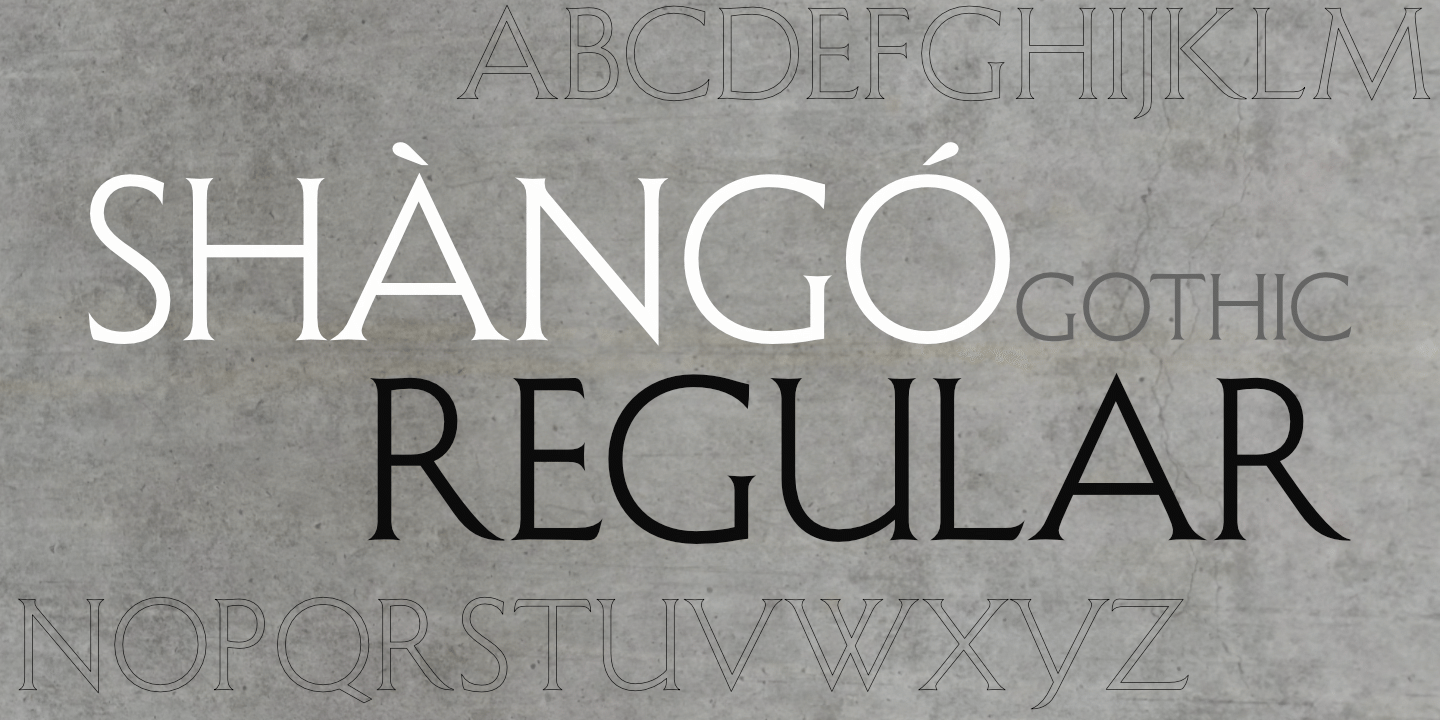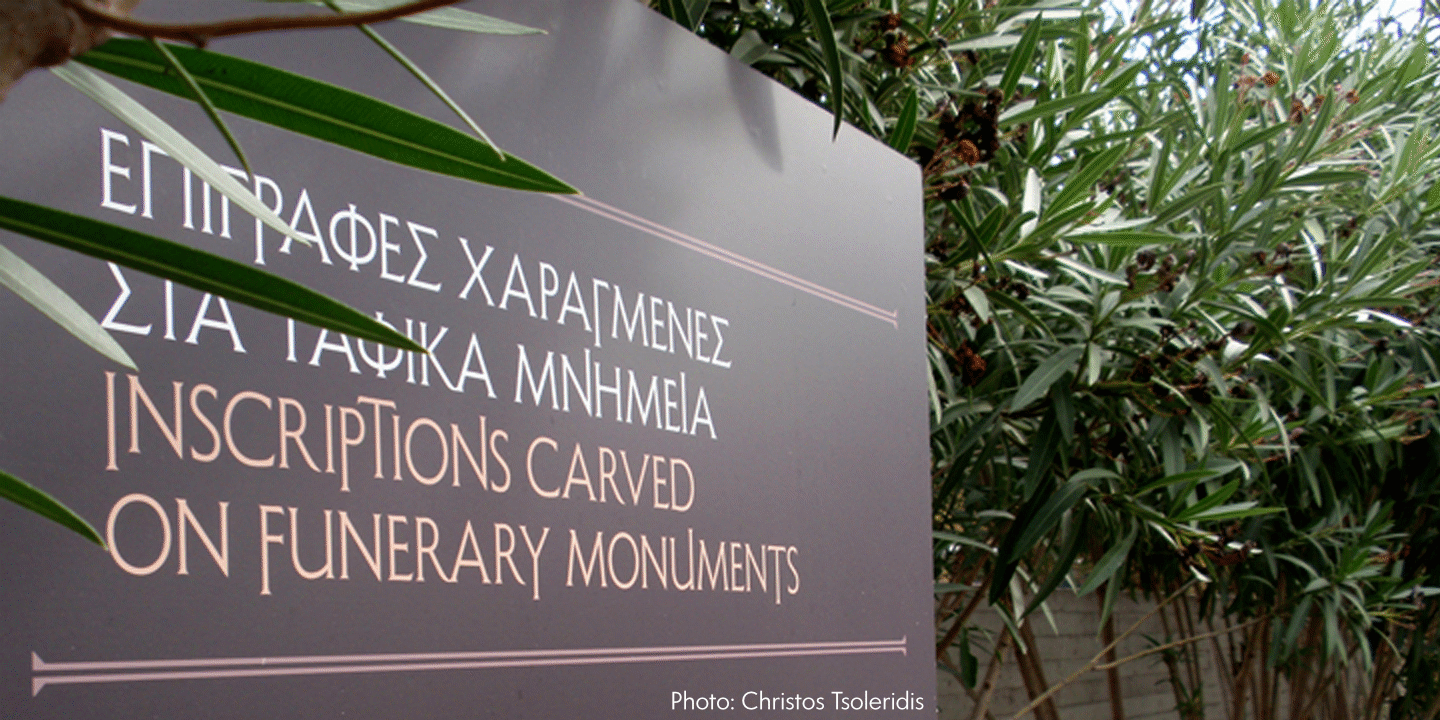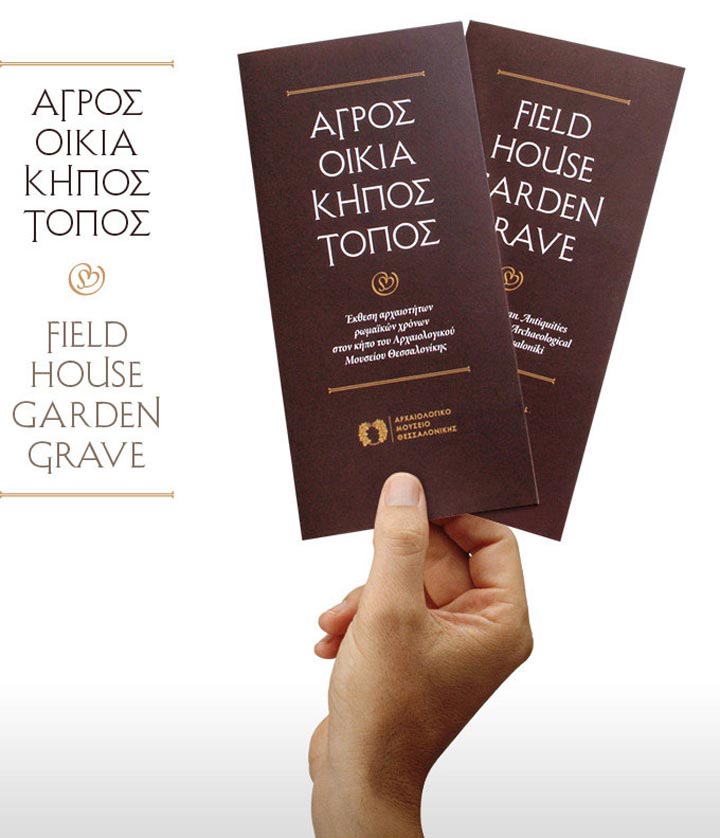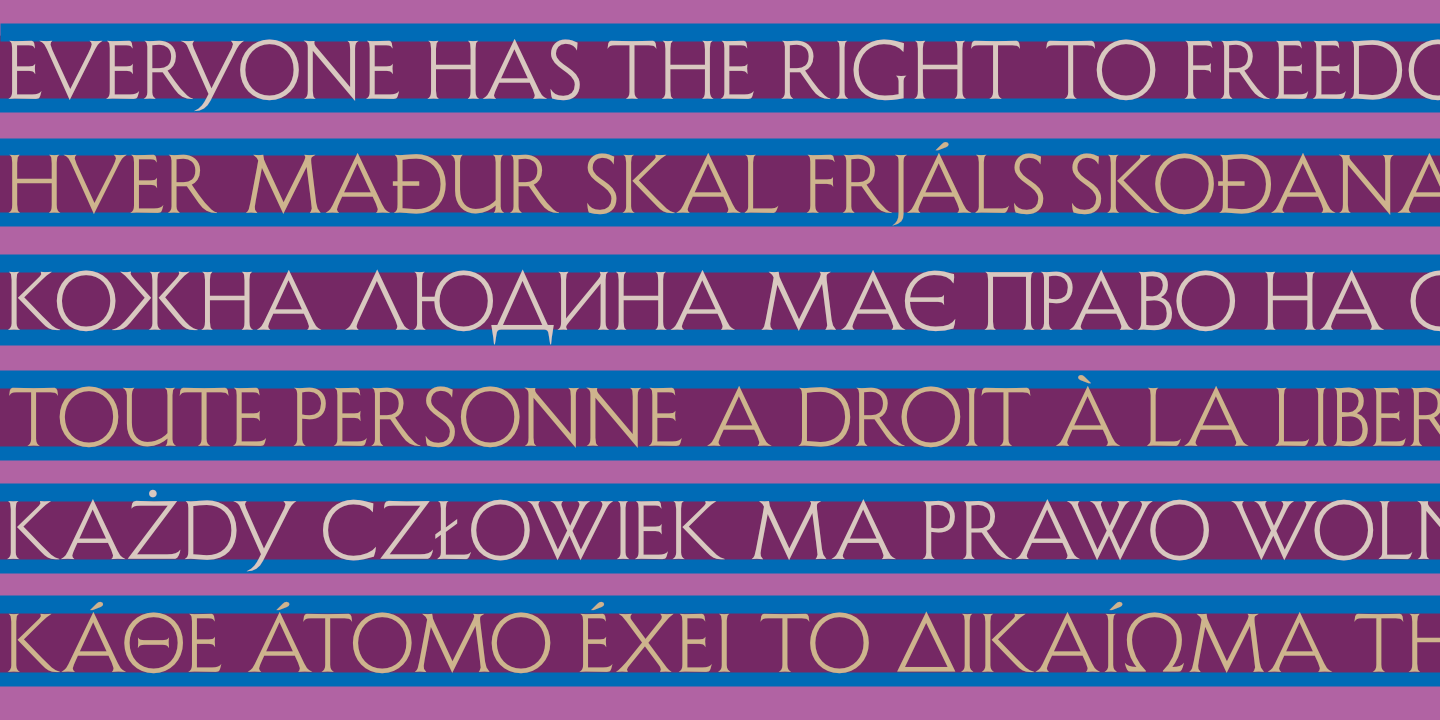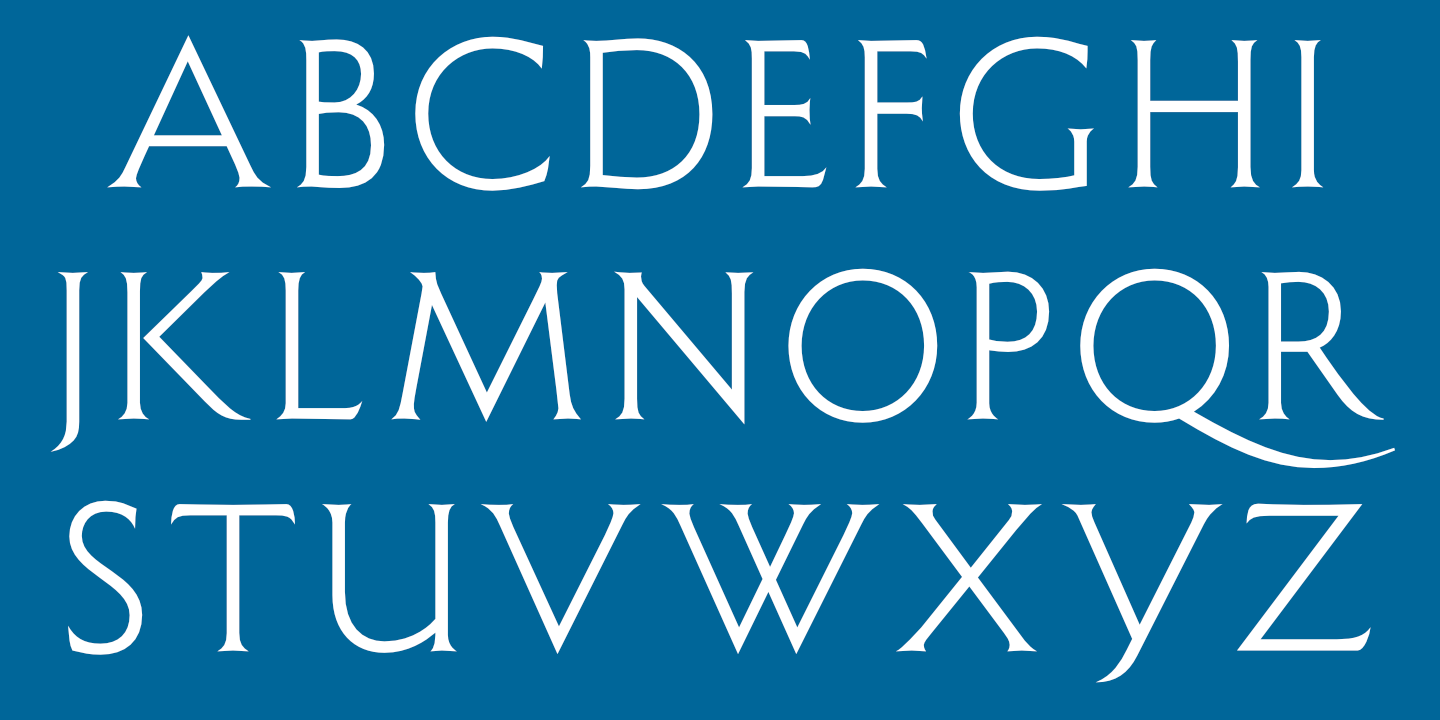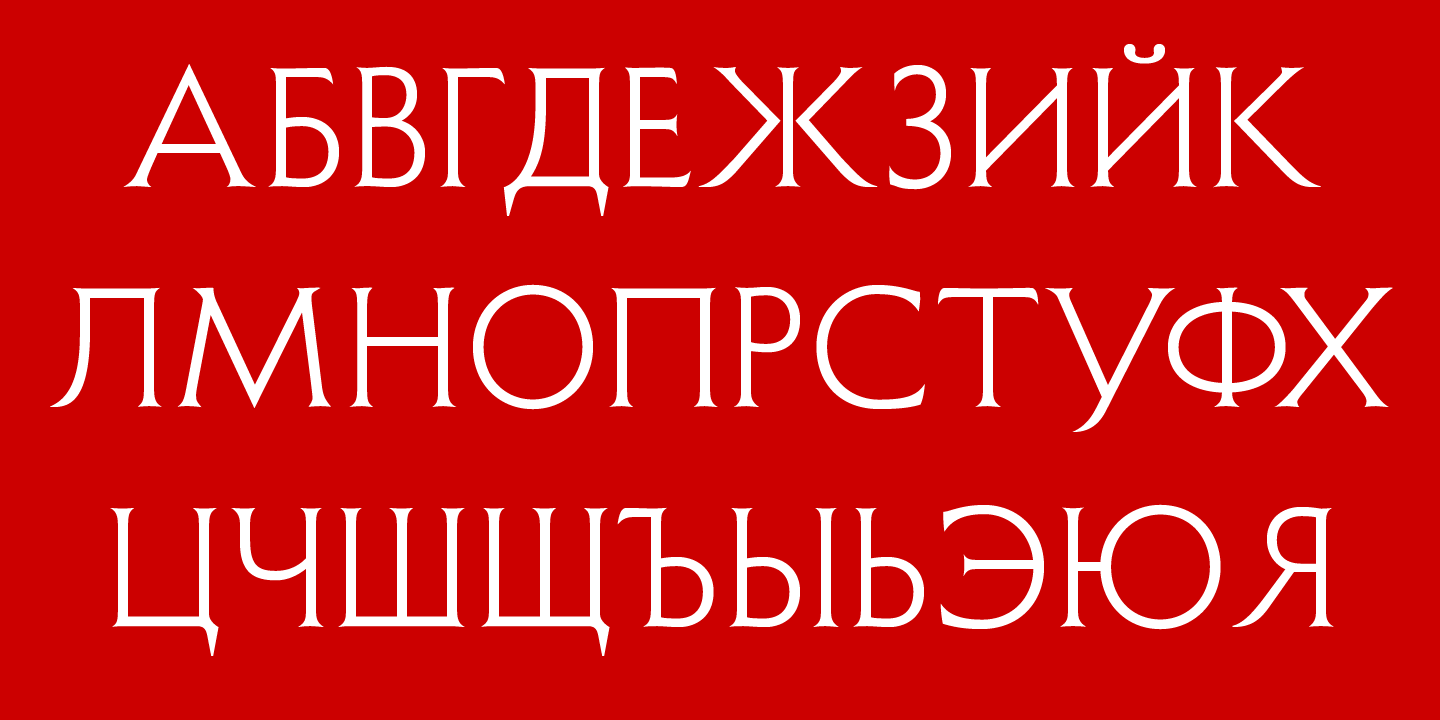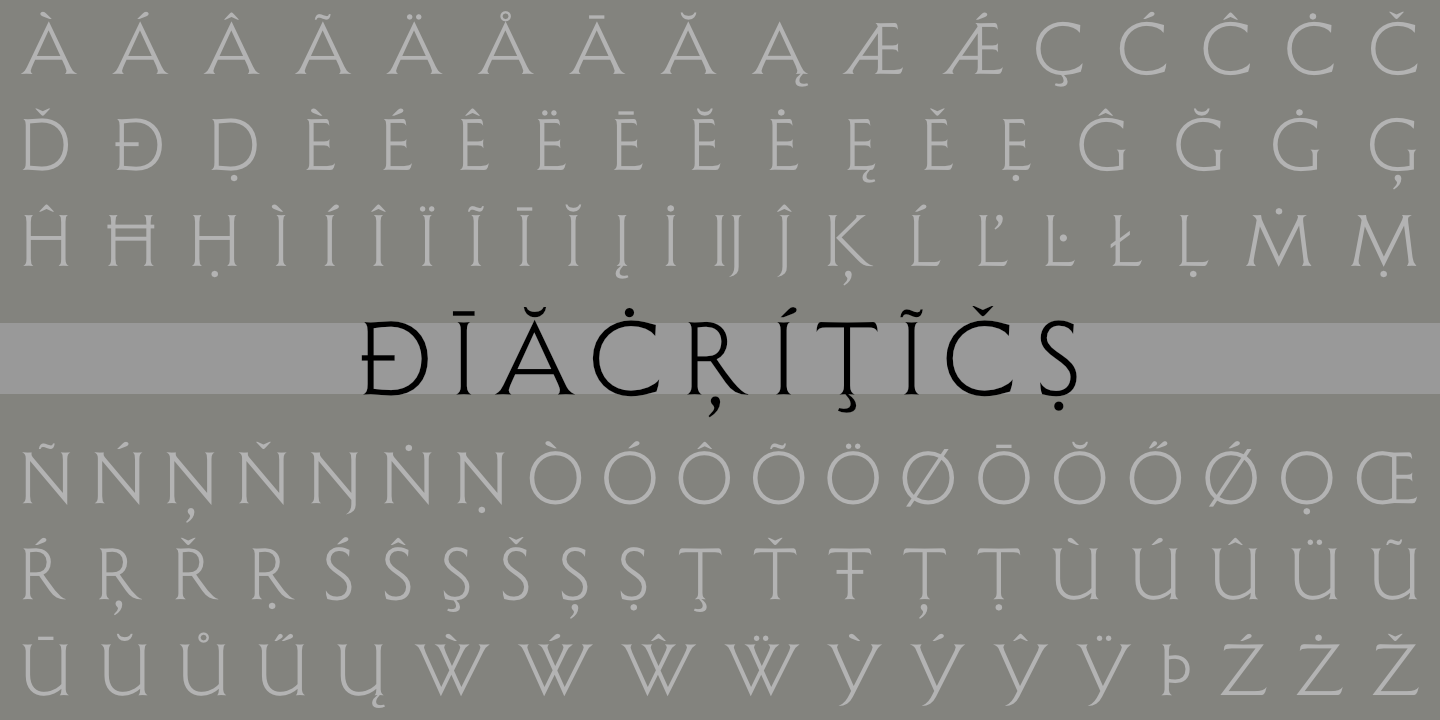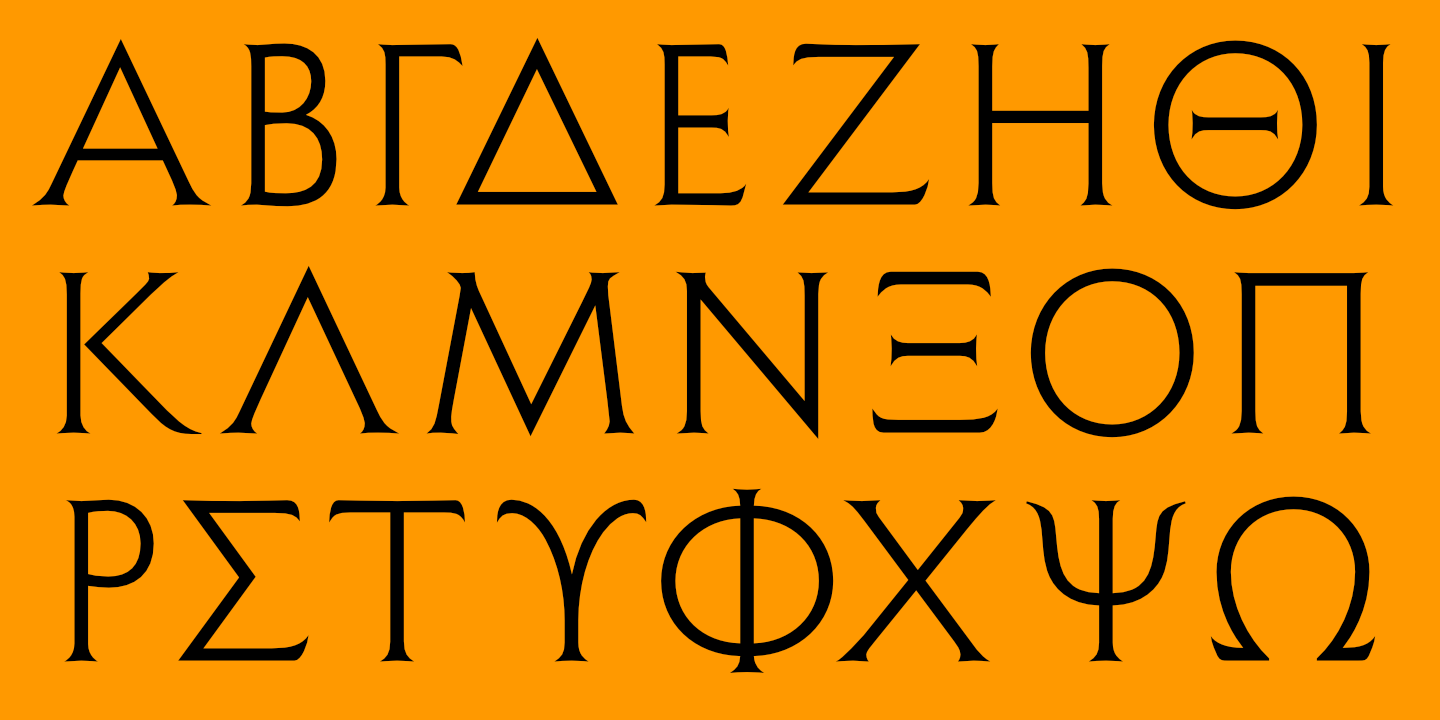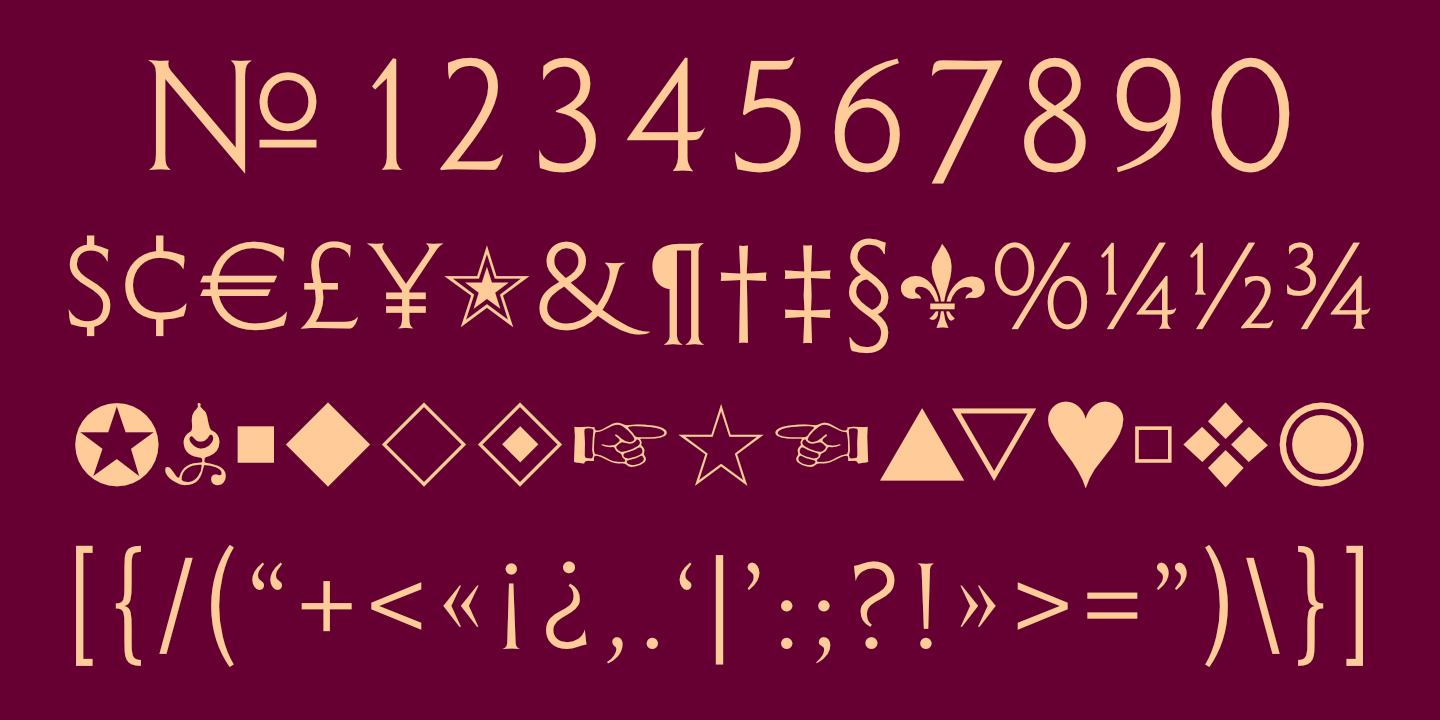
Shàngó Gothic Regular: Basic Latin alphabet. See Glyphs for details.
Shàngó Gothic Regular supports most languages that use the Cyrillic alphabet. See Glyphs for details.
Shàngó Gothic Regular supports modern (monotonic) Greek. See Glyphs for details.
Shàngó Gothic Regular: Numerals, basic punctuation, currency symbols, and a sampling of ornaments.
Shàngó Gothic Regular supports most European languages, including modern Greek and Cyrillic-using languages.
Shàngó Gothic Regular contains extra ligatures and several alternate glyphs for more versatile typography.
Brochure, by Christos Tsoleridis of Oxhouse Design Studio, for museum exhibit using Shàngó Gothic Regular.
The Shàngó family includes four styles: Classic, Gothic, Sans, and Chiseled.
Shàngó Gothic Regular used for signage (in both English and Greek) at museum exhibit in Thessaloniki, Greece.